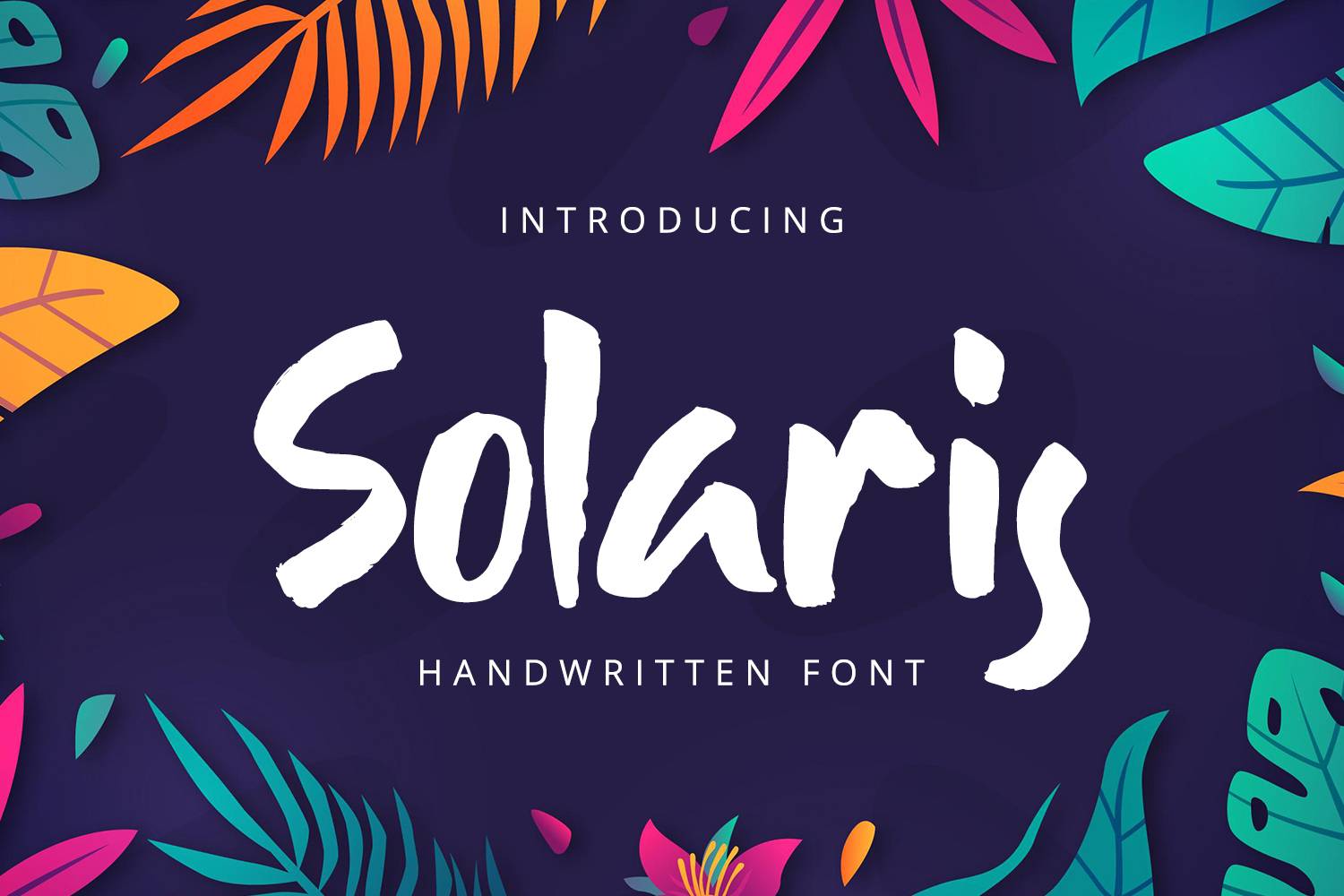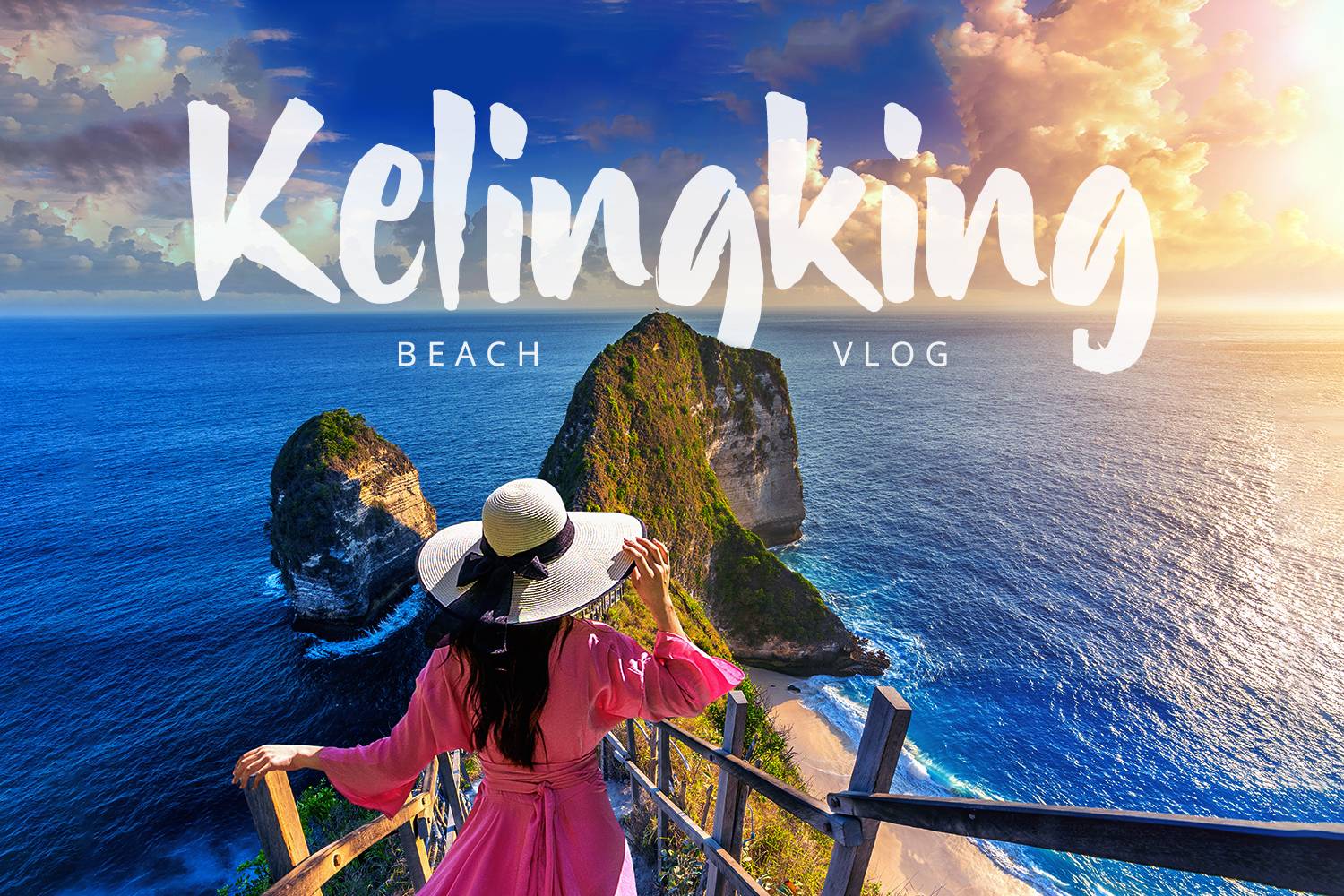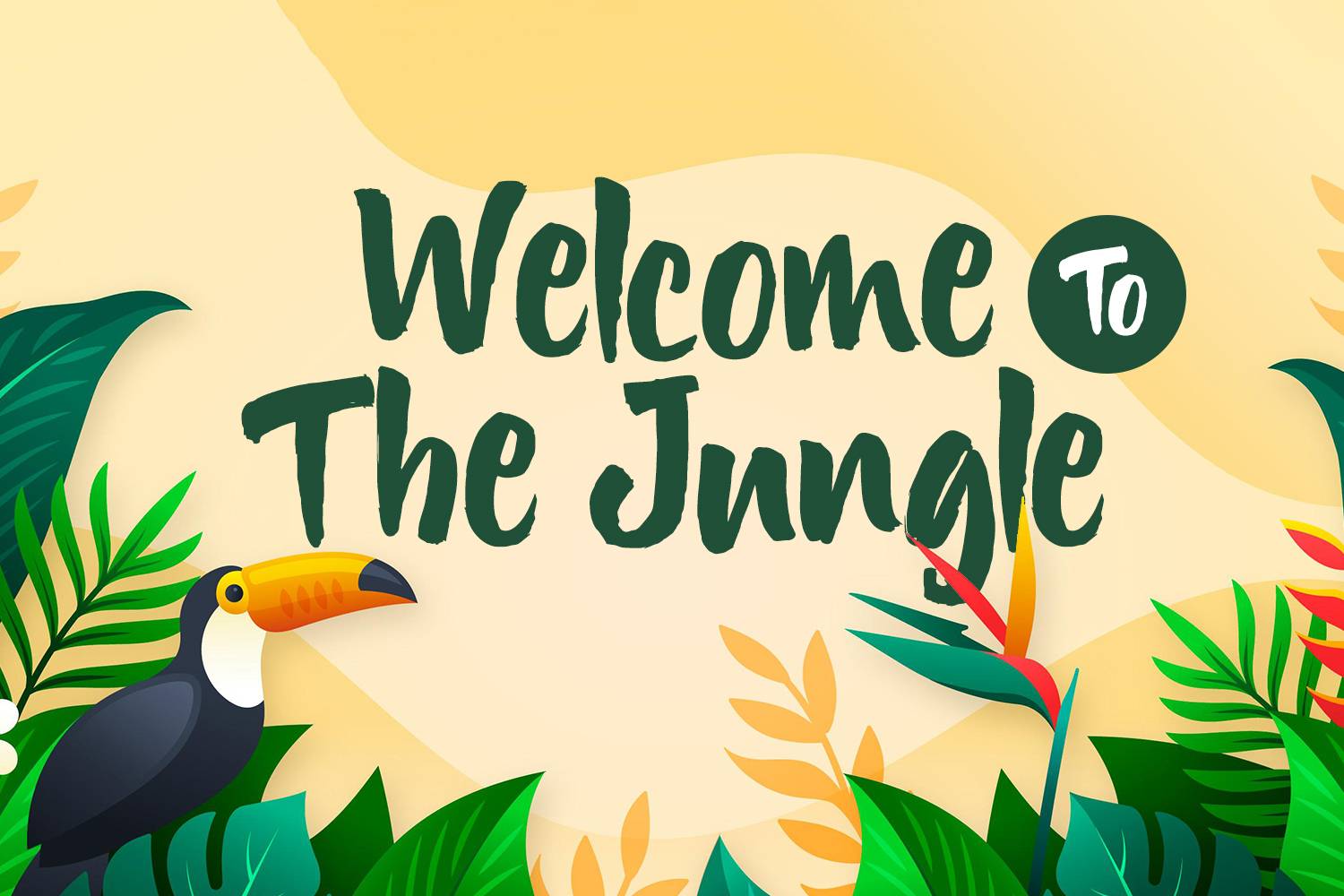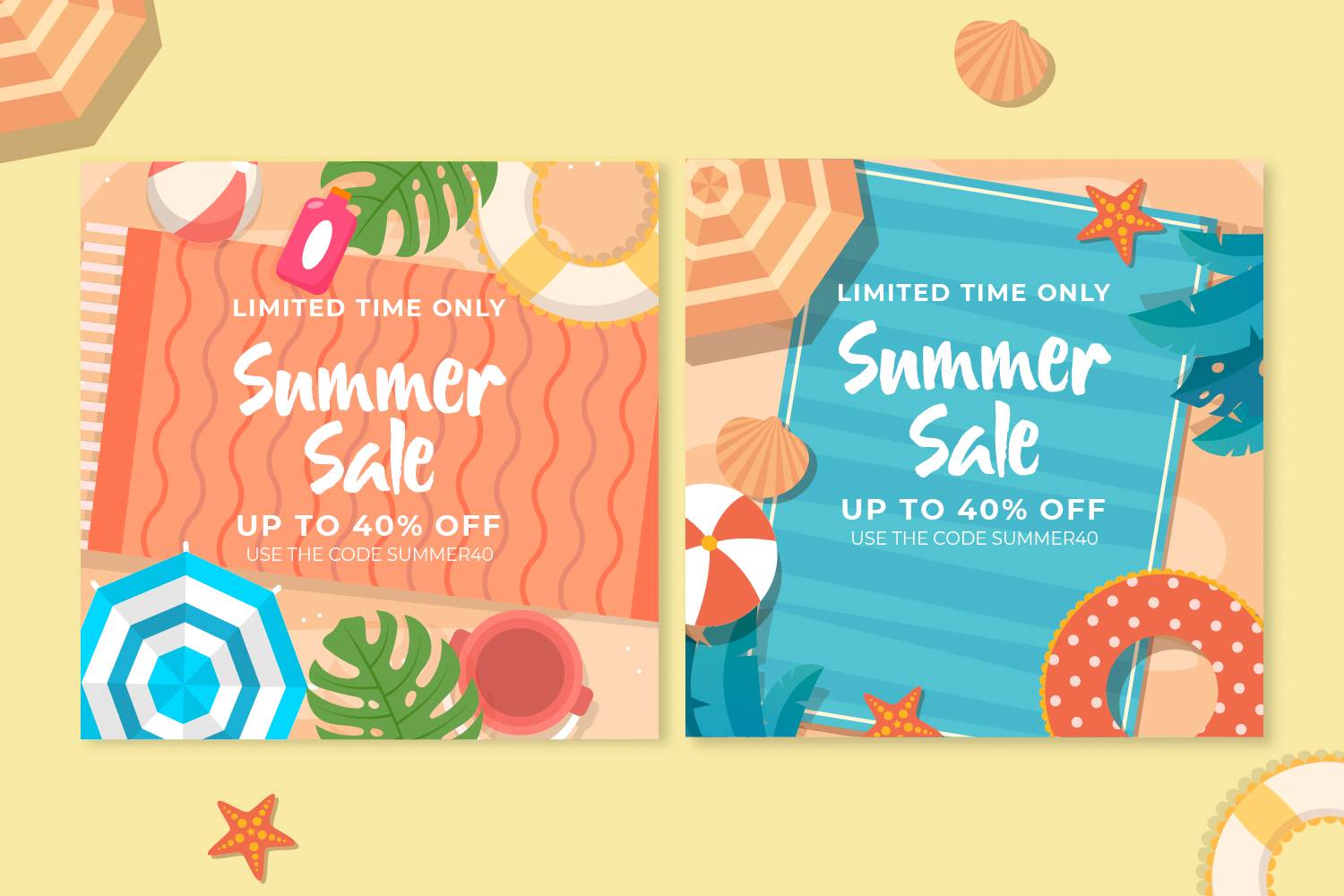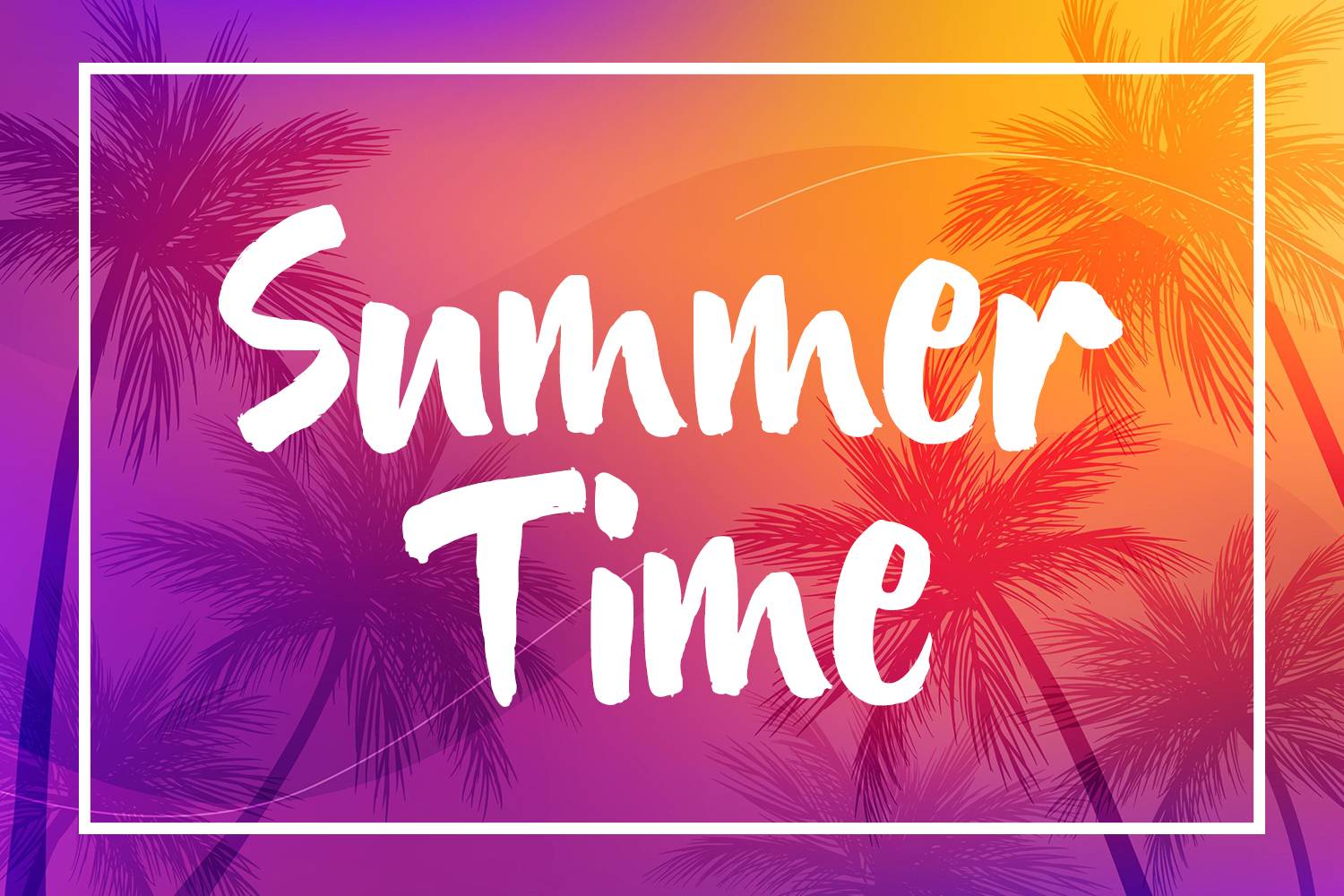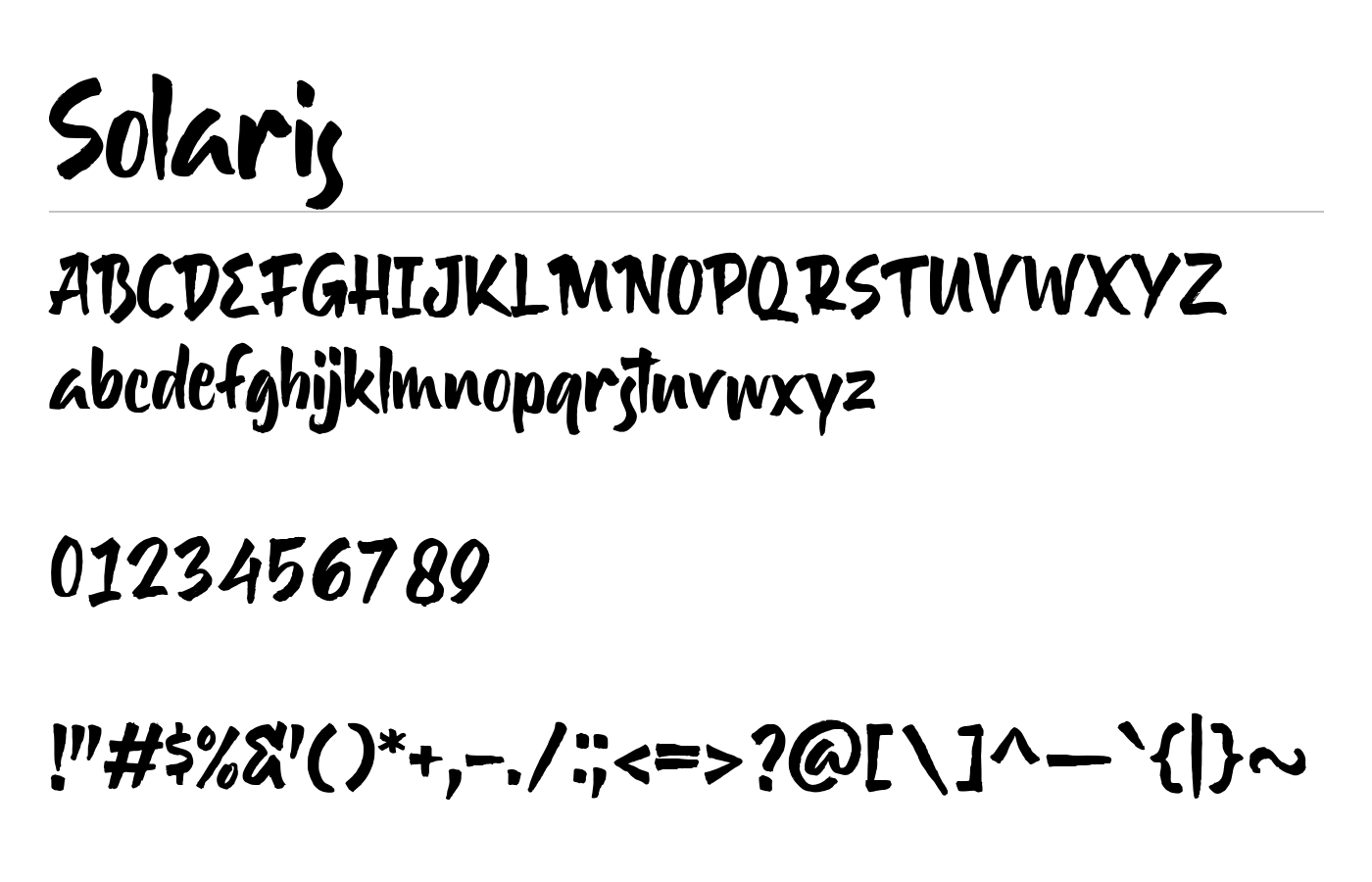
Solaris is a hand-drawn, casual sans serif font with a friendly and organic feel. Its uneven strokes and brush-like texture give it a lively, informal personality, making it perfect for creative projects, playful branding, and artistic designs where a natural, approachable look is desired. This font works well in headlines, logos, and packaging where expressive, personal style is key.
Solaris Font
About Solaris Font